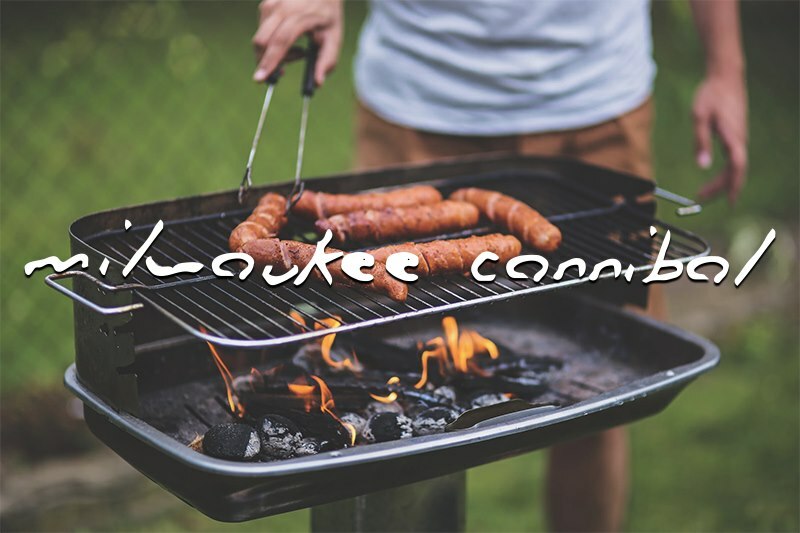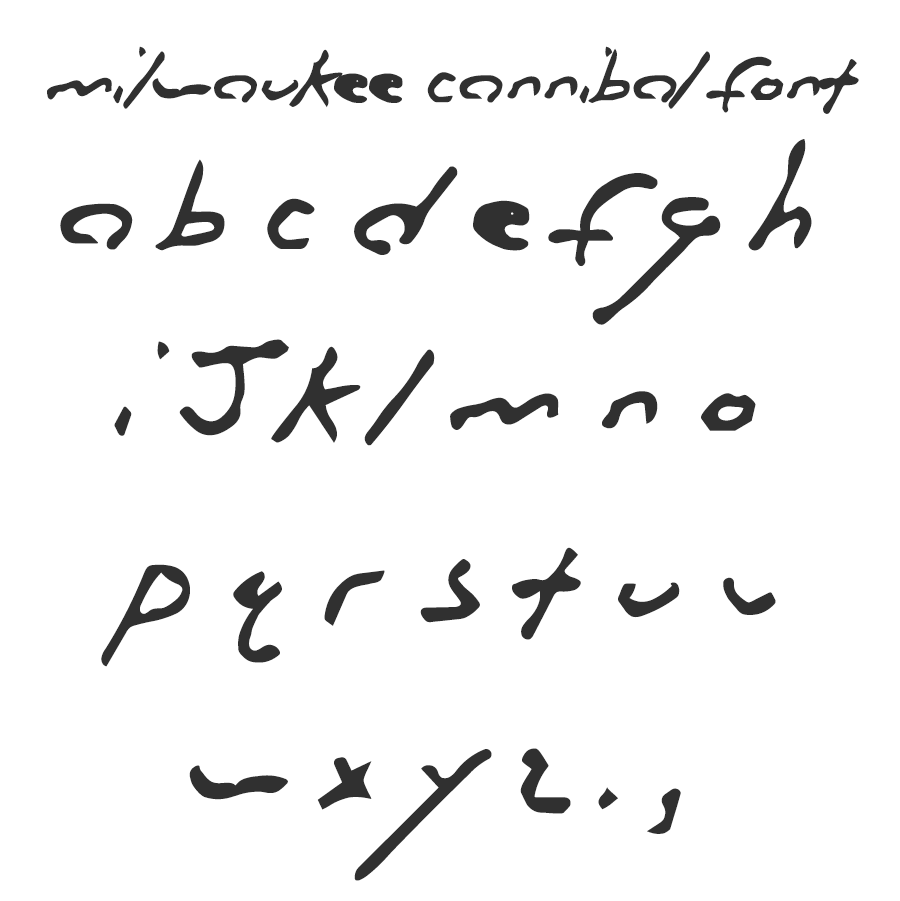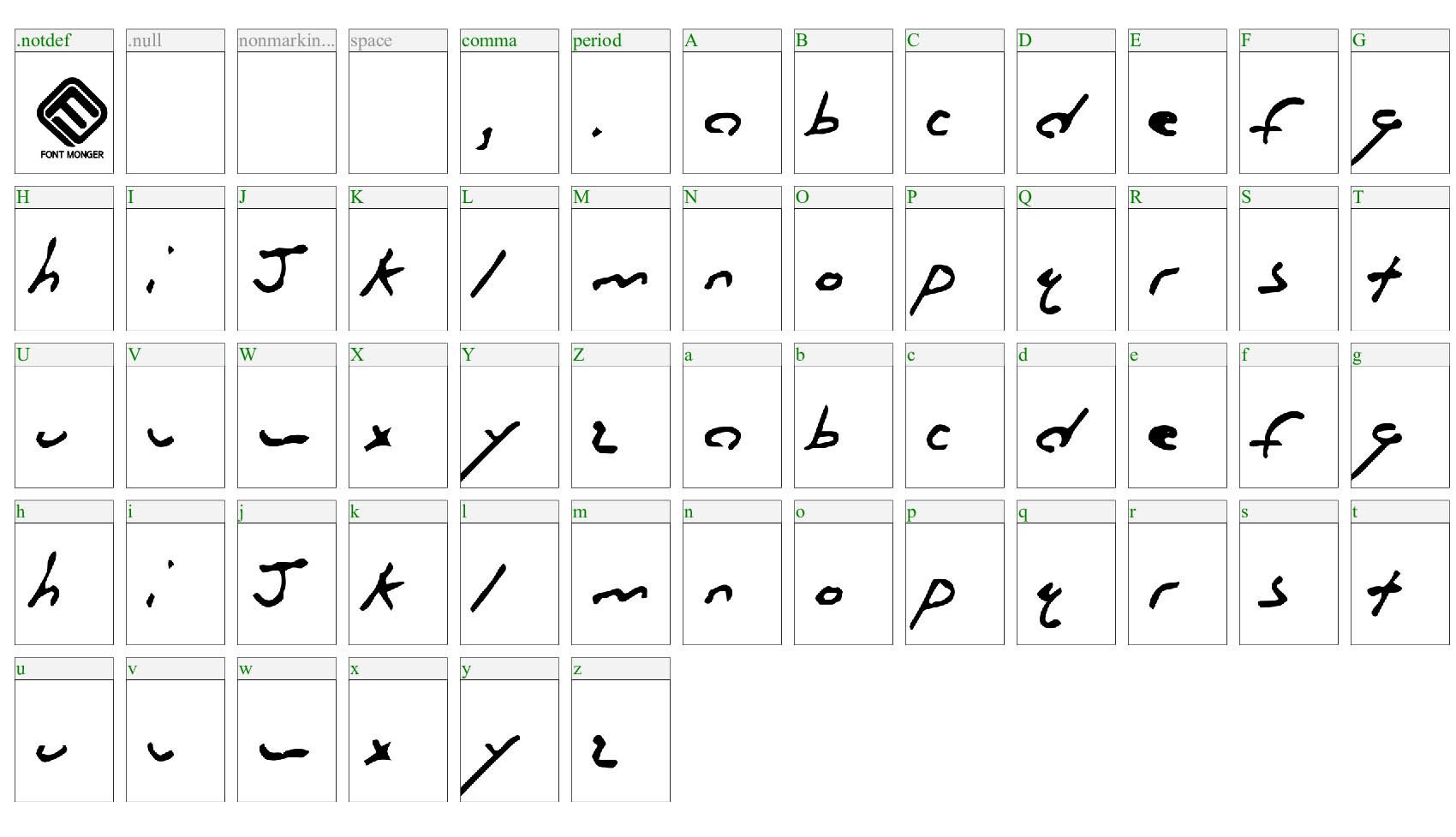
This font was created based off the handwriting's of Serial Killer Jeffery Dahmer.
Uppercase: See image for available letters
Lowercase: See image for available letters
Numbers: No
Punctuation: See image for available symbols
Accents: No